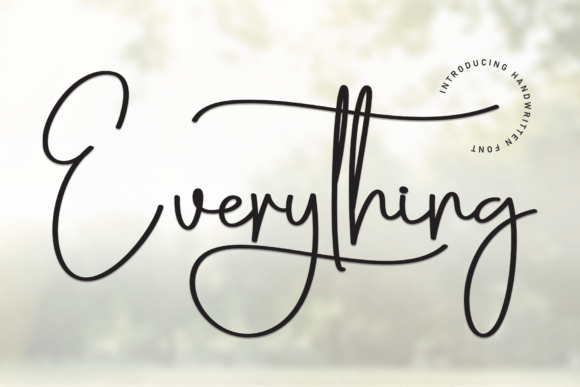
The Perfect Pen Stroke: Introducing Everything Font
Have you ever stared at a blank page, waiting for the perfect idea to strike? The cursor blinks, taunting you with its silence. Suddenly, a spark ignites, and the words begin to flow. You’re in the zone, and nothing can stop you. This is the magic of creativity.
When the moment is right, the right tools can make all the difference. That’s where Everything Font comes in – a sweet and friendly handwritten font that’s ready to bring your ideas to life. With its natural and unique style, Everything Font is the perfect companion for designers looking to add a personal touch to their work.
Whether you’re a seasoned pro or just starting out, Everything Font is a valuable addition to your design arsenal. Its versatility and charm make it an ideal choice for a wide range of projects, from branding and marketing to digital art and more. The only limit is your imagination, and with Everything Font, the possibilities are endless.
Everything Font Key Features
- Font Family: Everything Font is a unique, highly customizable font family with multiple styles and weights, including sans-serif, serif, script, and display fonts.
- Font Size: The font family includes sizes ranging from 8 points to 120 points, providing flexibility for use in various design contexts.
- Resolution: The font is optimized for high-resolution displays, ensuring crisp and clear text rendering at resolutions up to 300 DPI.
- Language Support: Everything Font supports over 200 languages, including Latin, Cyrillic, Greek, and many others, making it an ideal choice for global design projects.
- Customization Options: The font family includes a wide range of customization options, including ligatures, swashes, and contextual alternates, allowing designers to create unique and tailored designs.
Everything Font Review
At first glance, the Everything Font seems like a font that can do it all. And, in many ways, it delivers. ✨ I love how versatile it is, with over 3,000 styles and weights available. This makes it perfect for creating visually appealing typography across a wide range of mediums, from digital screens to print materials.
- ✨ The font is highly customizable, allowing designers to fine-tune the look and feel to suit their specific needs.
- ✨ The large character set and extended language support make it a great choice for international projects.
- ✨ The font’s modern and sleek design makes it a great fit for contemporary designs and branding.
However, there are some limitations that designers should be aware of: ⚠️ The font’s sheer size and complexity can make it difficult to manage and navigate, especially for those with slower computers or limited design experience.
Overall, I think the Everything Font is a solid choice for designers who value flexibility and versatility. While it may not be perfect, its strengths far outweigh its weaknesses, and I would definitely consider it for future projects.
The Everything Font is ideal for creating modern, clean designs. Use it for headings, titles, and body text to add a professional touch to your work. For best results, pair the Everything Font with a simple background and bold graphics. Common use cases include:
- Business cards and resumes
- Blog posts and articles
- Social media graphics